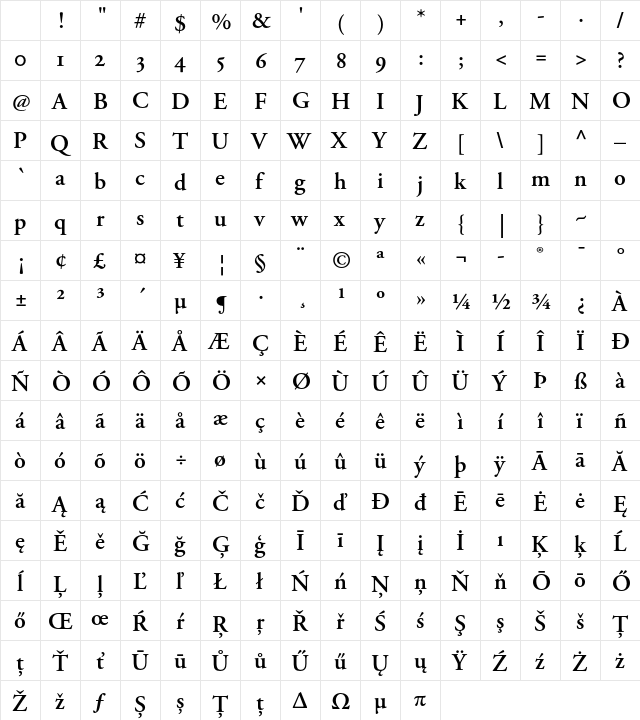
Complete Hipermestra Demibold glyph index. Displaying only characters natively supported by Hipermestra Demibold font.
Hipermestra is a composed and adaptable typeface that performs quietly and consistently across a wide range of design contexts. Its bold stroke weight gives it real presence on the page.